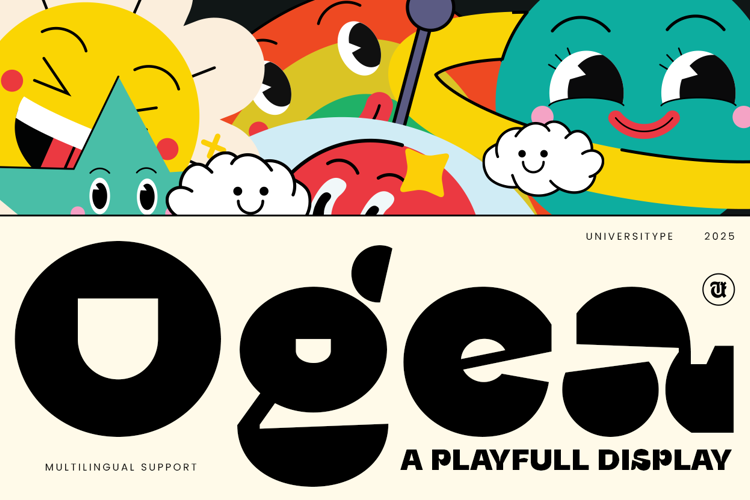
UT Ogah Font
UT Ogah is a bold display typeface built around contrast: sharp geometry meeting fluid, almost instinctive movement. It plays with broken structures, unexpected gaps, and soft terminals to create letterforms that feel raw yet controlled. The result is a typeface that feels energetic, expressive, and visually charged, ideal for designs that need presence without losing clarity.
UT Ogah works best when it leads. Headlines, branding, and statement-driven visuals benefit from its strong rhythm and unconventional anatomy, giving every composition a distinct voice with a modern edge.